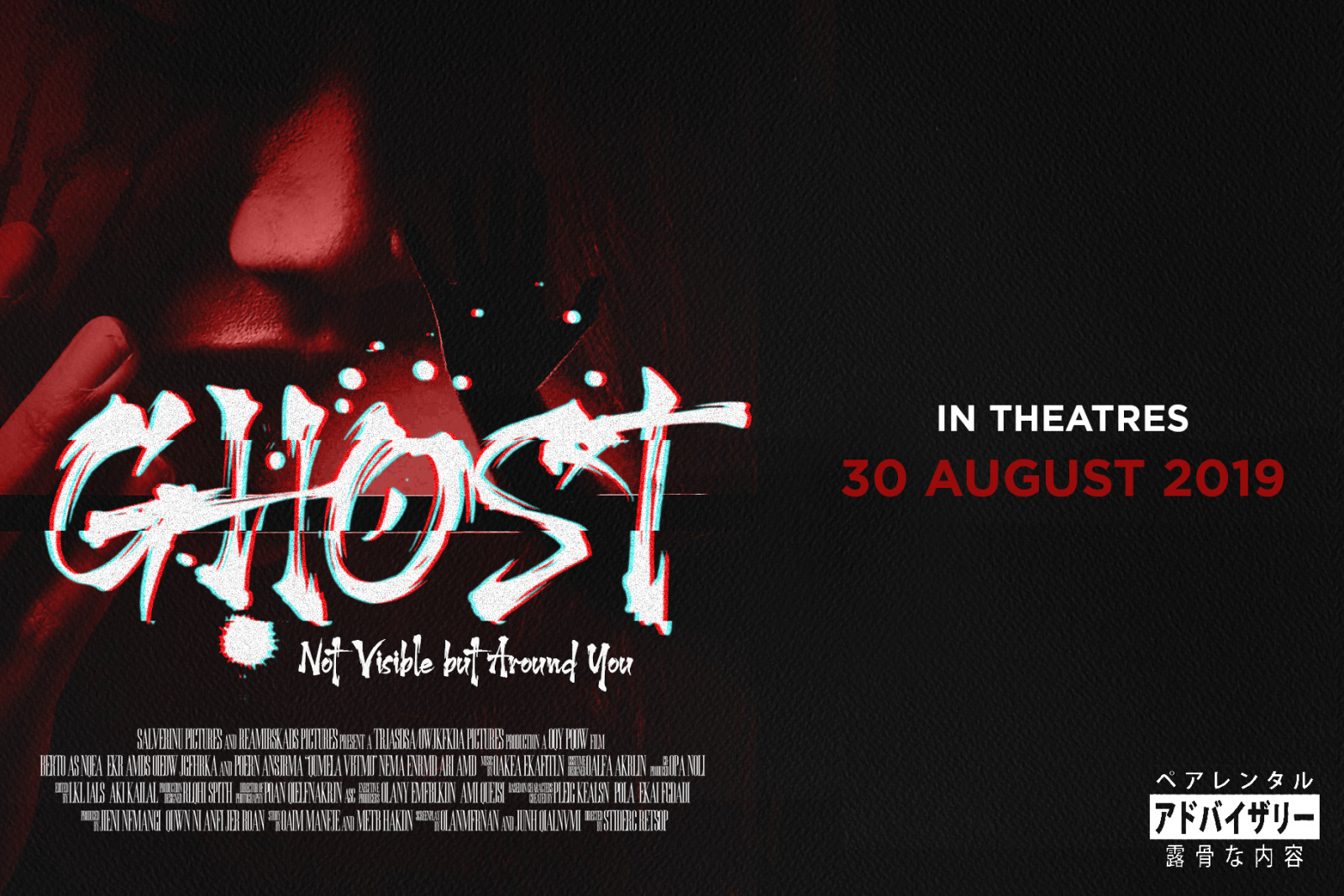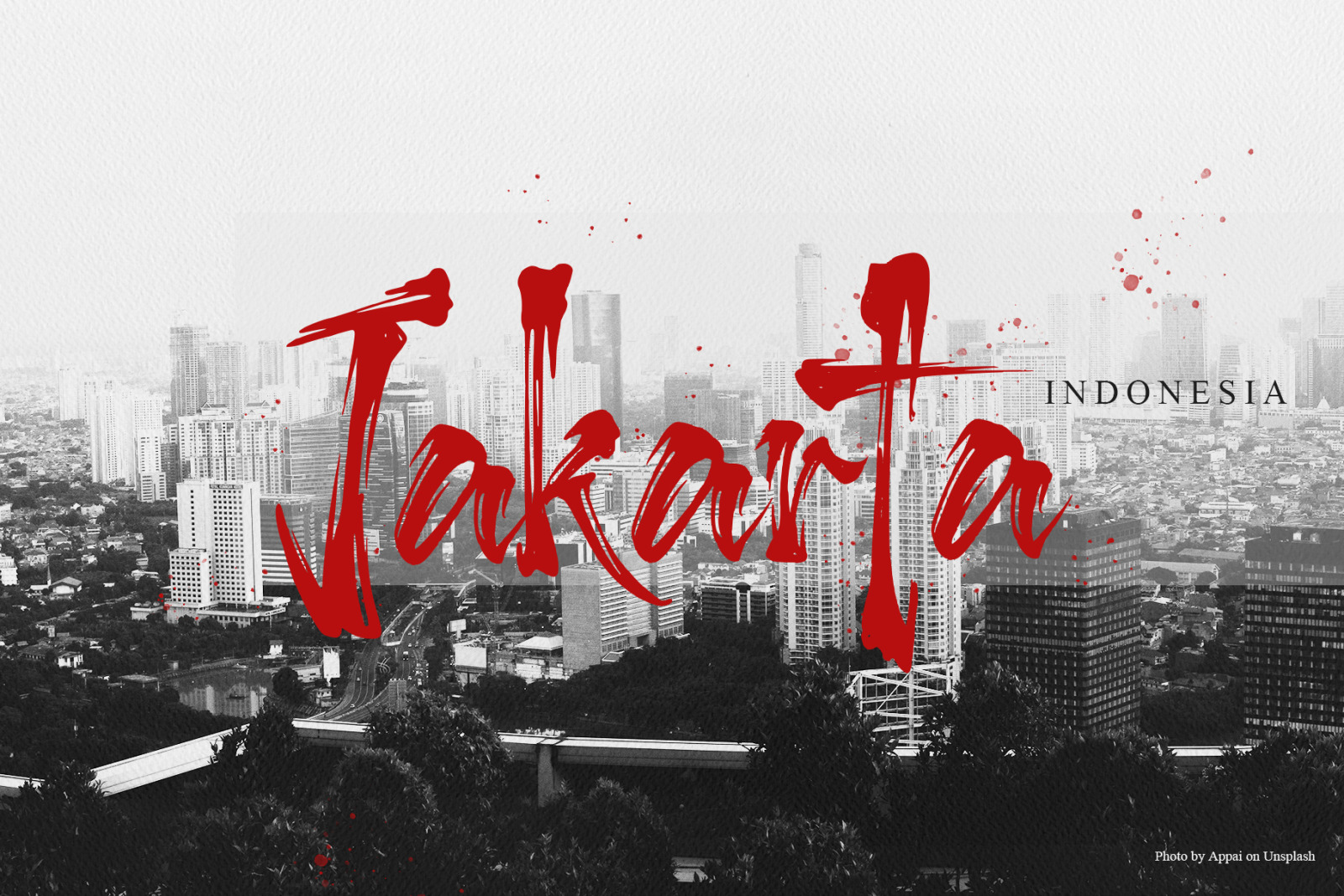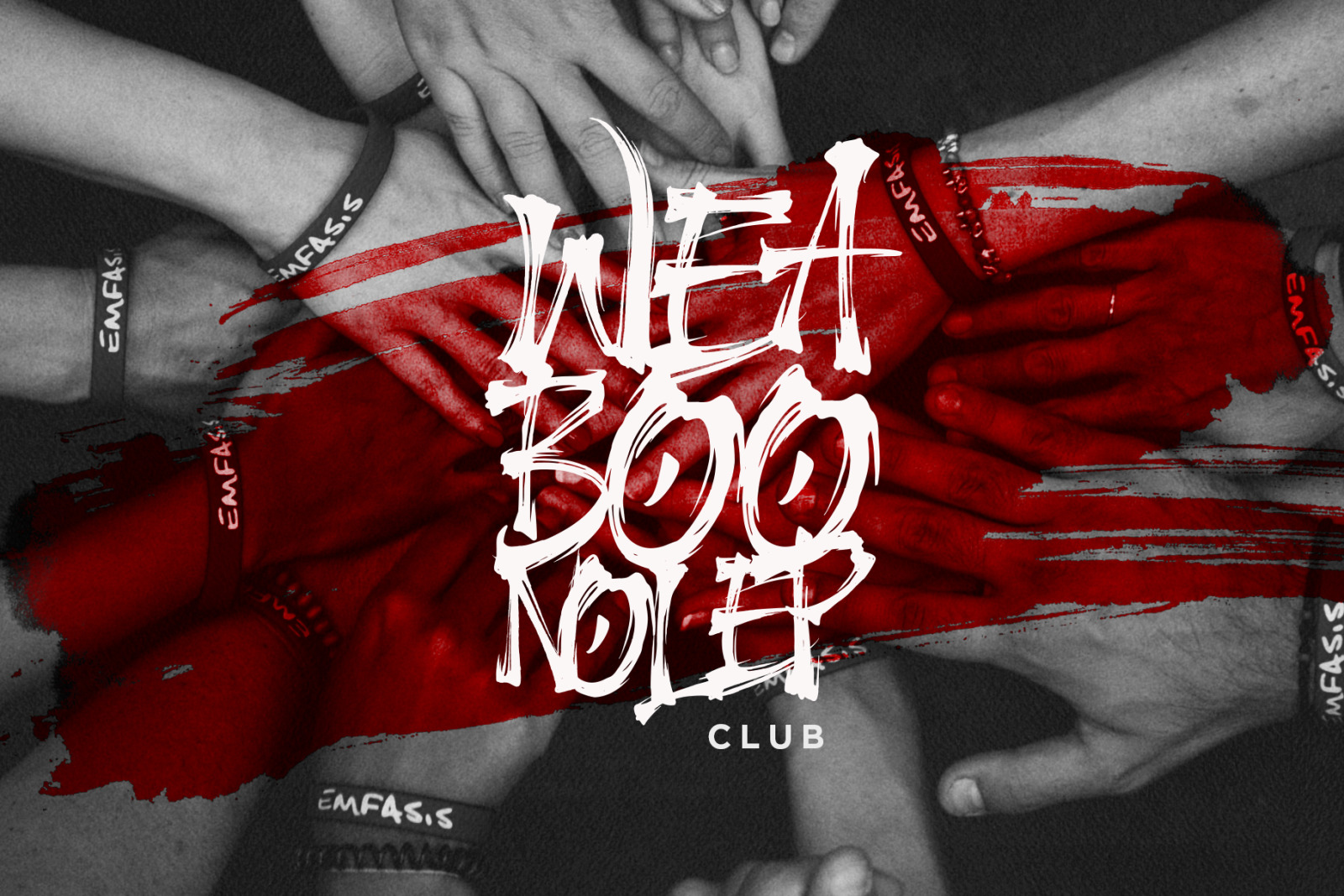
Harukaze Font
nspired by traditional Japanese calligraphy, Harukaze is a brush display typeface with a bold and powerful feel.
Multilingual Support
Number,
Punctuation.